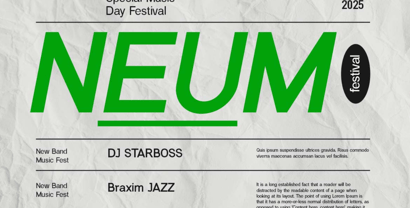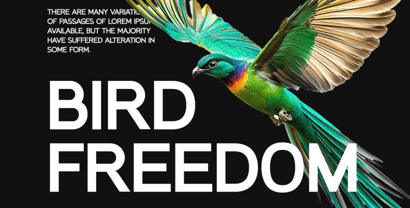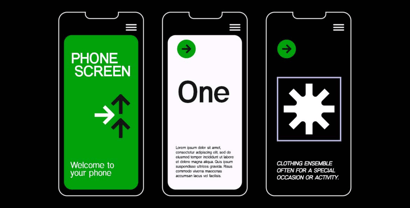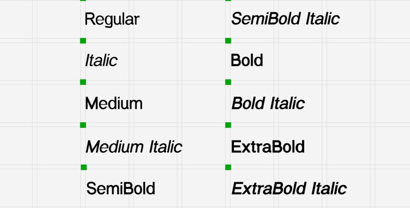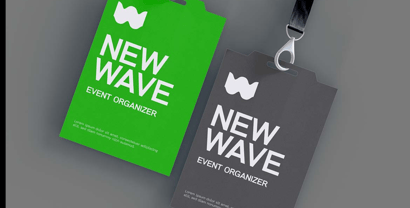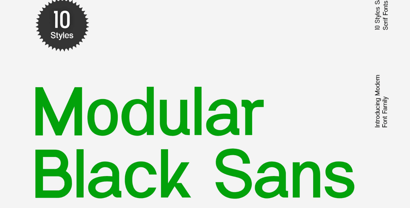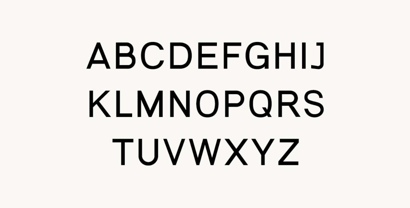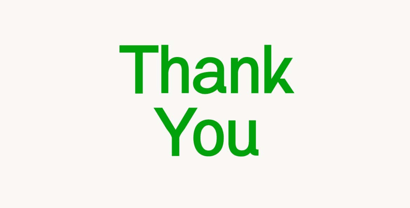
Modular Black Sans
by UICreative
The Modular Black Sans Font Family was designed by Hero and published by UICreative. Modular Black Sans contains 10 styles and family package options. More about this family
Introducing our new product the name is Modular Black Sans Serif Font Family. Modular Black Sans Serif Font Family that feels beautiful classy, elegant, and modern. This font is perfectly suited for a wide variety of projects, such as signature, stationery, logo, wedding, typography quotes, magazine or book covers, website headers, clothing, branding, packaging design, and more. Also, fashion-related branding or editorial design displays both masculine and feminine qualities.
Modular Black Sans Serif is a striking geometric typeface family built on a foundation of strong modular principles. This contemporary sans serif collection features a distinctive black weight that commands attention while maintaining exceptional legibility across various applications. The font's construction follows a systematic approach where each character is developed from a consistent set of geometric shapes and proportions, creating a cohesive visual language throughout the entire family. The modular design methodology gives this font family its unique personality, balancing mathematical precision with subtle optical adjustments that enhance readability at different sizes.
The Modular Black Sans Serif Font Family represents a modern interpretation of geometric sans serif traditions, incorporating strategic ink traps that ensure crisp reproduction at smaller sizes while becoming distinctive design elements when used in larger display contexts. This thoughtful approach to character construction allows the font to maintain its bold presence across diverse applications without compromising functionality. The family's robust black weight serves as the cornerstone of the collection, providing designers with a powerful typographic tool for creating impactful headlines and statements.
This versatile font family excels in contemporary branding, digital interfaces, editorial design, and environmental graphics where visual clarity and distinctive character are equally important. The Modular Black Sans Serif's systematic approach to typography makes it particularly well-suited for design systems that require typographic consistency across multiple touchpoints while still delivering a unique visual identity. The font family's comprehensive character set supports extensive language coverage, making it an ideal choice for international brands and multilingual publications.
Designers: Hero
Foundry: UICreative